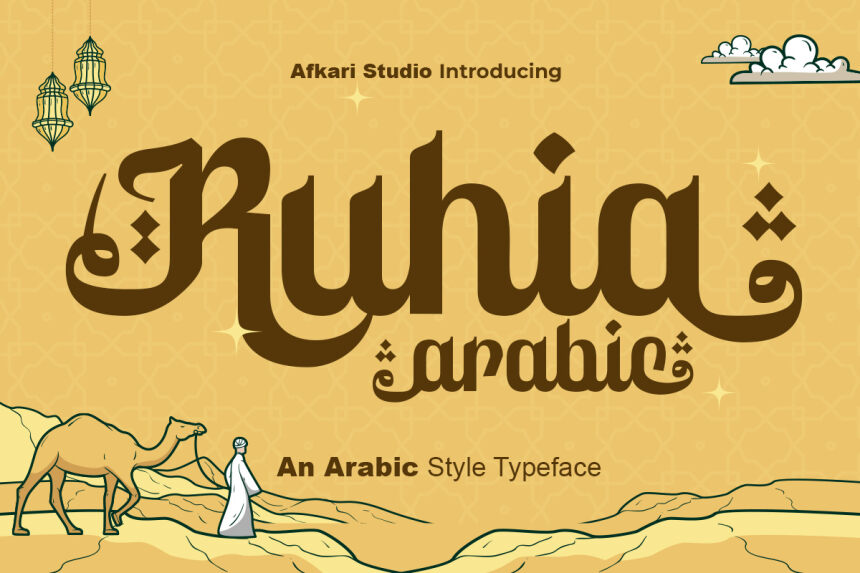
Ruhia Arabic font by Musthafa Kamal Emje of Afkari Studio is a free decorative faux Arabic typeface. Tall, flowing letterforms curl into teardrop shapes and inky swirls, giving Latin text a strong Middle Eastern-inspired flavor without losing legibility. The strokes feel bold and slightly textured, so even a single word set large has the presence of a hand-painted sign.